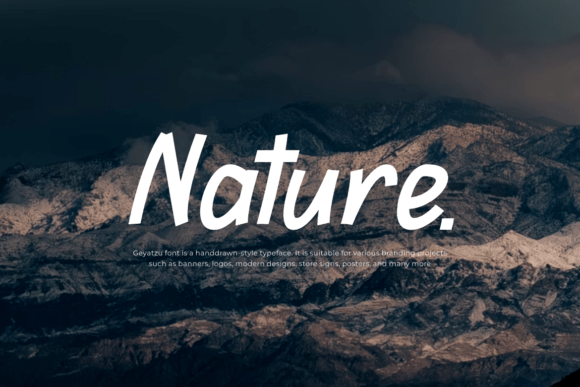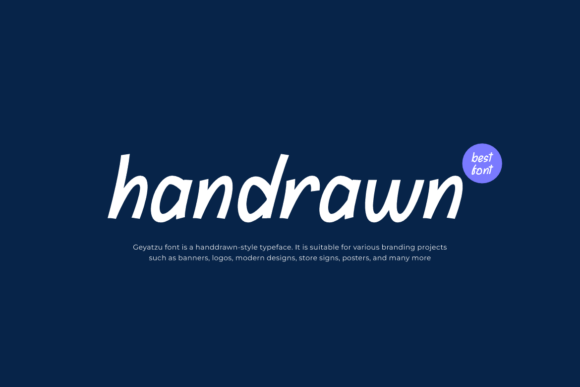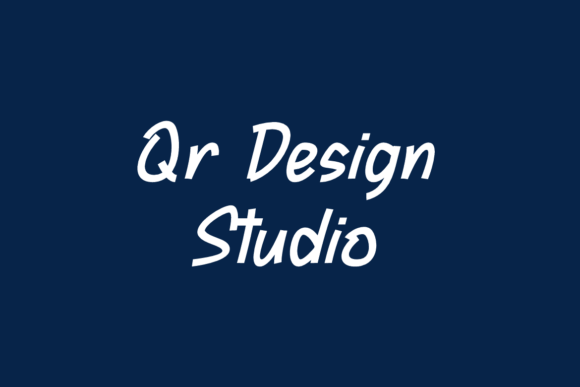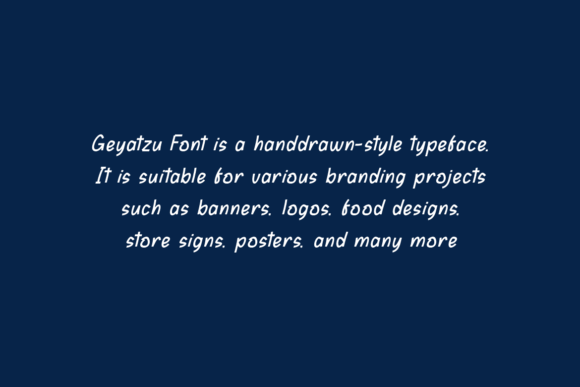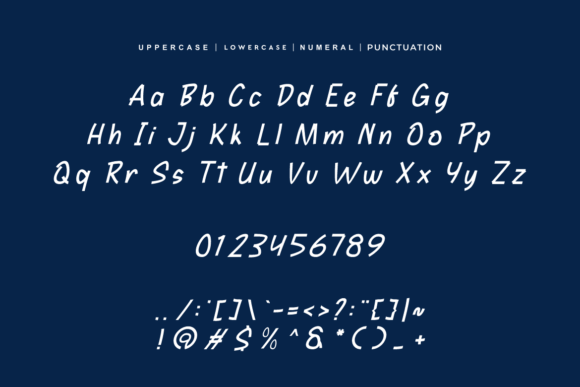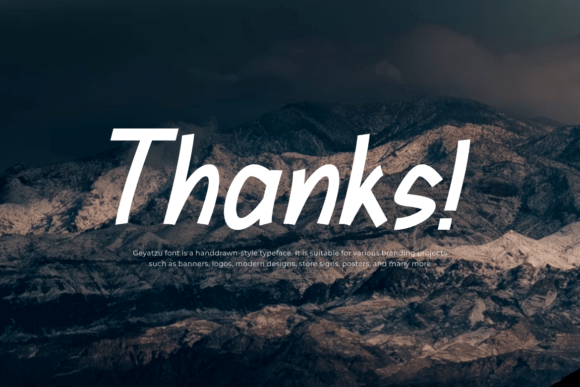
Geyatzu Font: Elevate Your Designs with a Handdrawn and Authentic Display Typeface
In the world of typography, a font can make or break a design. For designers and crafters looking for a unique and authentic display typeface, Geyatzu Font is an excellent choice. This handdrawn font is perfect for various branding projects, including logos, modern designs, and more. In this article, we’ll dive into the features and benefits of Geyatzu Font and explore how it can elevate your designs.
What is Geyatzu Font?
Key Features of Geyatzu Font
- Handdrawn and Authentic: Geyatzu Font is a handdrawn typeface, giving it a unique and authentic feel that’s perfect for designs that require a personal touch.
- Display Typeface: This font is designed to make a statement, making it ideal for headings, titles, and other display purposes.
- Versatile: Geyatzu Font stands out beautifully in a wide range of contexts, from logos and branding to modern designs and more.
Benefits of Using Geyatzu Font
So, why choose Geyatzu Font for your designs? Here are just a few benefits:
- Add a Personal Touch: With its handdrawn and authentic design, Geyatzu Font adds a personal touch to your designs, setting them apart from generic fonts.
- Enhance Your Brand: A unique and elegant font like Geyatzu can elevate your brand’s visual identity and make it more memorable.
- Stand Out: Geyatzu Font is designed to make a statement, ensuring your designs stand out in a crowded market.
Tips and Tricks for Getting the Most Out of Geyatzu Font
Here are some tips and tricks to help you get the most out of Geyatzu Font:
- Experiment with Sizes and Colors: Geyatzu Font looks great in various sizes and colors, so don’t be afraid to experiment and find the perfect combination for your design.
- Pair with Other Fonts: Geyatzu Font pairs well with other fonts, so try combining it with complementary fonts to create a unique look.
- Use in Different Contexts: Geyatzu Font is versatile, so try using it in different contexts, such as logos, headings, and body text.
In conclusion, Geyatzu Font is an excellent choice for designers and crafters looking for a handdrawn and authentic display typeface. Its unique and elegant design makes it perfect for various branding projects, including logos, modern designs, and more. With its versatility, ease of use, and benefits, Geyatzu Font is sure to elevate your designs and make them stand out.